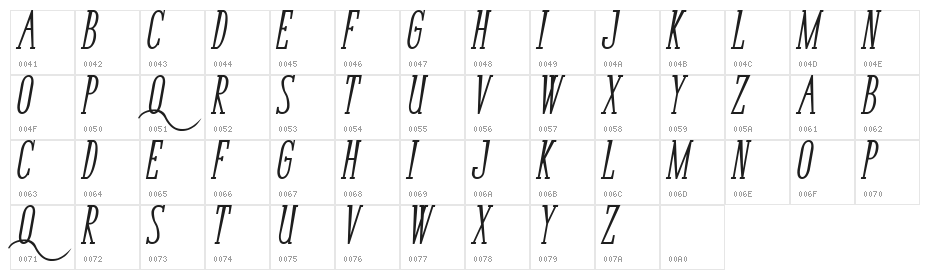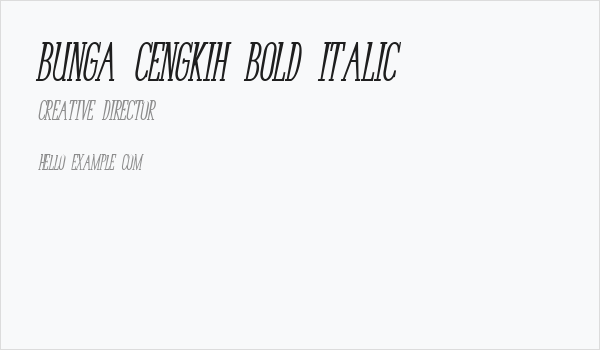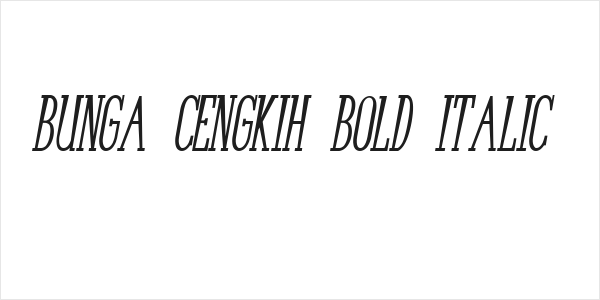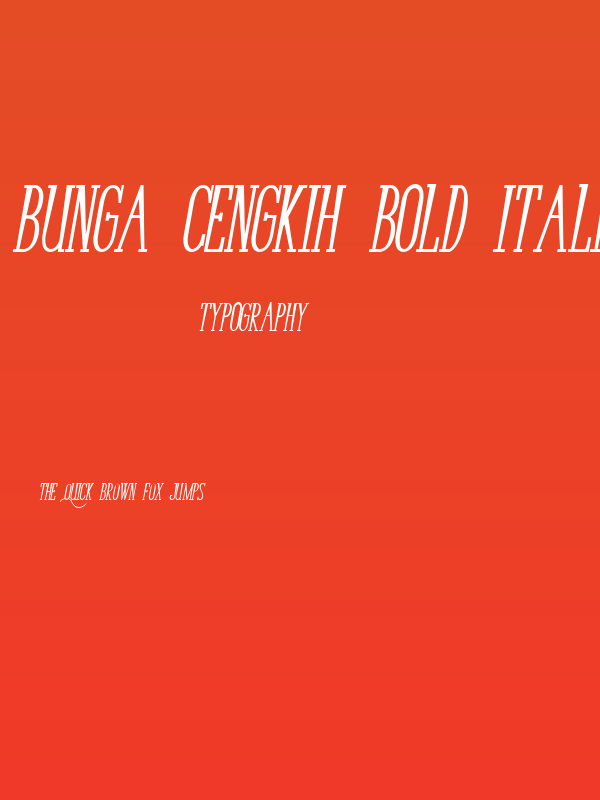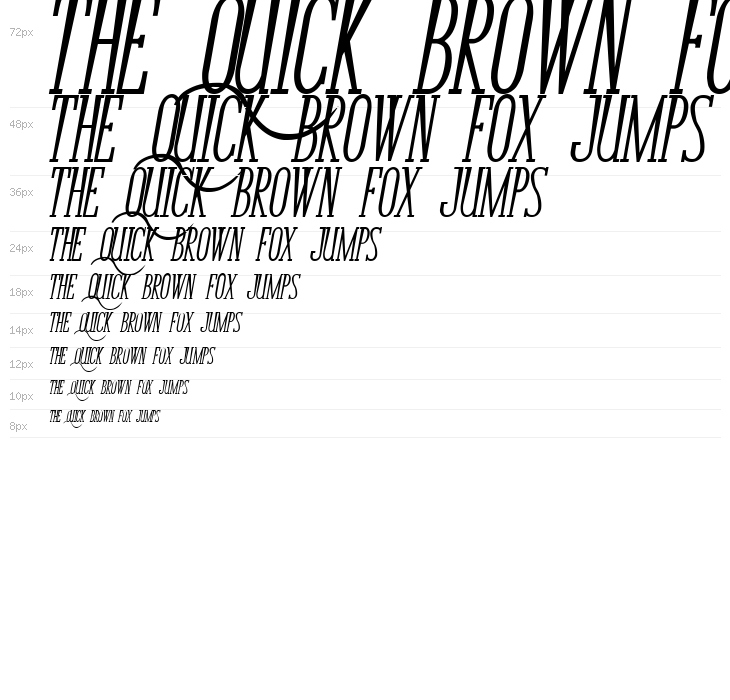
Bunga Cengkih Bold Italic Font
Bunga Cengkih Bold Italic Description
This font exhibits a bold and italicized style, characterized by its elongated and slightly condensed letterforms. The strokes are thick, providing a strong visual impact, while the italic slant adds a dynamic and elegant touch. The characters are closely spaced, enhancing the cohesive appearance of the text. The font's high contrast between thick and thin strokes contributes to its dramatic and sophisticated look, making it suitable for attention-grabbing headlines or titles. Its overall style is modern yet retains a classic elegance, making it versatile for various design applications.
| Proposed Projects | Ideal for use in fashion magazines, luxury branding, editorial headlines, and artistic posters. |